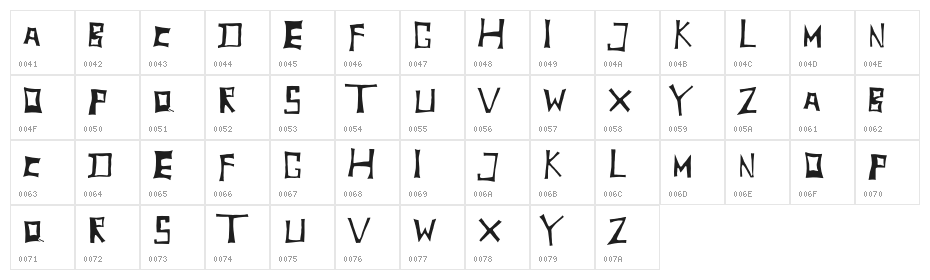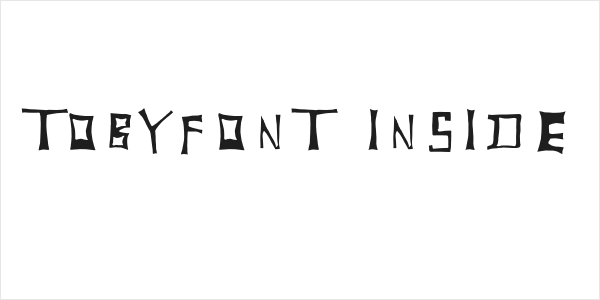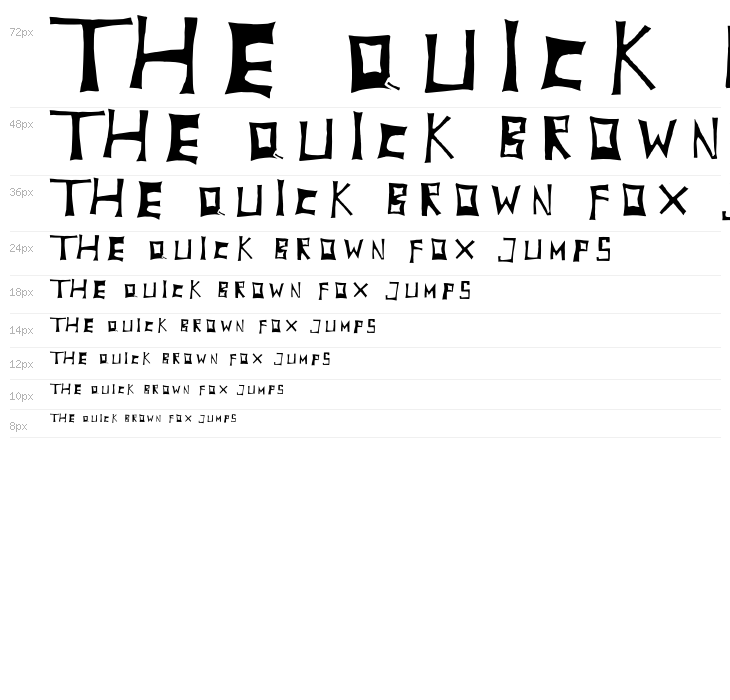
TobyFont Inside Font
TobyFont Inside Description
This font features a unique and edgy design with irregular, jagged edges that give it a hand-drawn, almost chaotic appearance. The characters are bold and slightly distorted, creating a sense of movement and energy. The uppercase and lowercase letters maintain a consistent style, with sharp angles and varying line thicknesses that add to the dynamic feel. The numerals and special characters follow the same aesthetic, ensuring a cohesive look across all text. This font is perfect for projects that require a bold statement or a touch of artistic flair.
| Overall Style | Modern, Artistic |
| Proposed Projects | Ideal for posters, album covers, graffiti art, and any project needing a bold, artistic touch. |